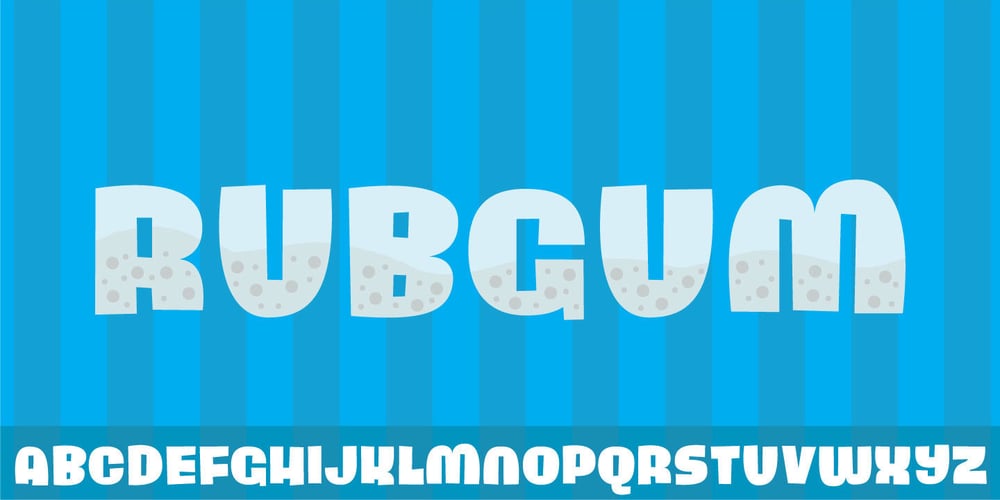
Rub Gum Font Family was designed by Jakob Fischer and published by PizzaDude.dk. Rub Gum contains 1 styles and family package options. Rub Gum is thick, chunky and heavy as heck! In the progress of making Rub Gum, I got inspiration from the grafitti- and comic universe! Use Rub Gum for something that needs a heavy dose of grafitti and cartoon! Comes with a good handful of ligatures!